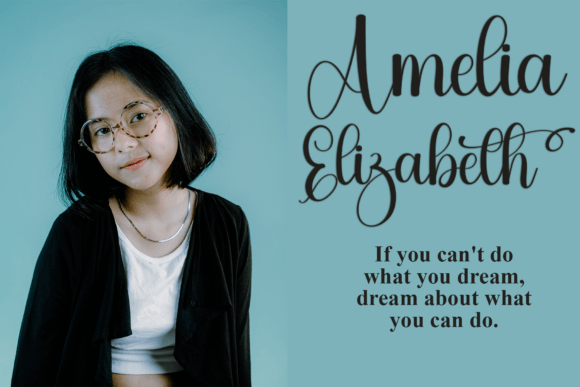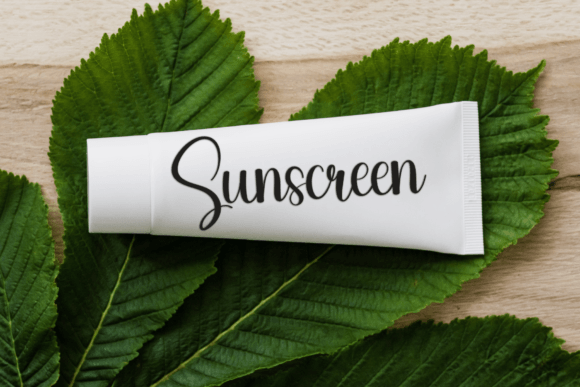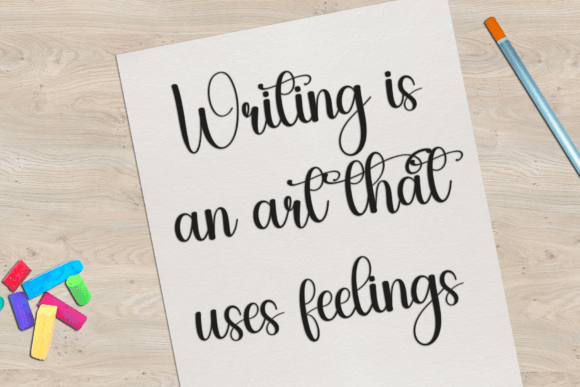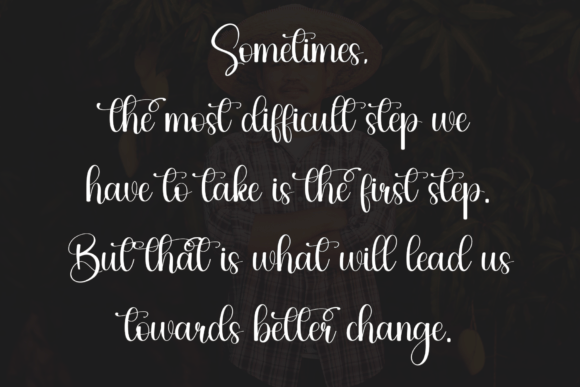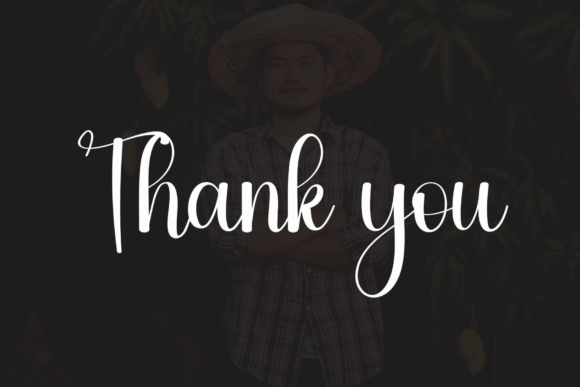
The Magic of Father Font: A Festive Holiday Companion
I still remember the holiday season when I was working on a project to create a set of festive greeting cards for a client. I had a clear vision of what I wanted to achieve – a cheerful, nostalgic feel that would capture the spirit of the holidays. But, as I was browsing through my font library, I just couldn’t find the right one. That was when I stumbled upon Father Font, and it instantly became my go-to choice for the project.
With its decorative elements and unique flair, Father Font added a touch of charm to my designs that I hadn’t seen before. It was perfect for greeting cards, gift labels, and holiday-themed projects. In this article, I’ll share my experience with Father Font, its features, and how to make the most of it in your designs.
An Honest Review of Father Font
What I Love About Father Font ✨
• ✅ Festive and happy vibe that instantly captures the holiday spirit
• ✅ Decorative elements and unique flair that add charm to designs
• ✅ Perfect for greeting cards, gift labels, and holiday-themed projects
• ✅ Easy to read and understand, even in smaller font sizes
• ⚠️ Limited use outside of holiday-themed projects – it might not be the best fit for other design projects
• ⚠️ Some users might find the font a bit too ornate or over-the-top for their taste
The Story Behind Father Font
While the actual designer of Father Font remains a mystery, it’s said that the font was created with the intention of capturing the magic of the holiday season. The designer, reportedly a lover of festive traditions and nostalgia, aimed to create a font that would evoke feelings of warmth and cheer. And, judging by the font’s popularity, it’s clear that they succeeded.
Font Name Father Font
Author Creatype Designer
Q: What makes Father Font unique?
A: Father Font’s unique blend of decorative elements and festive flair sets it apart from other fonts.
Q: Is Father Font suitable for body text?
A: While Father Font is easy to read, it’s best used for headlines, titles, and short paragraphs. For longer body text, a clearer font might be more suitable.